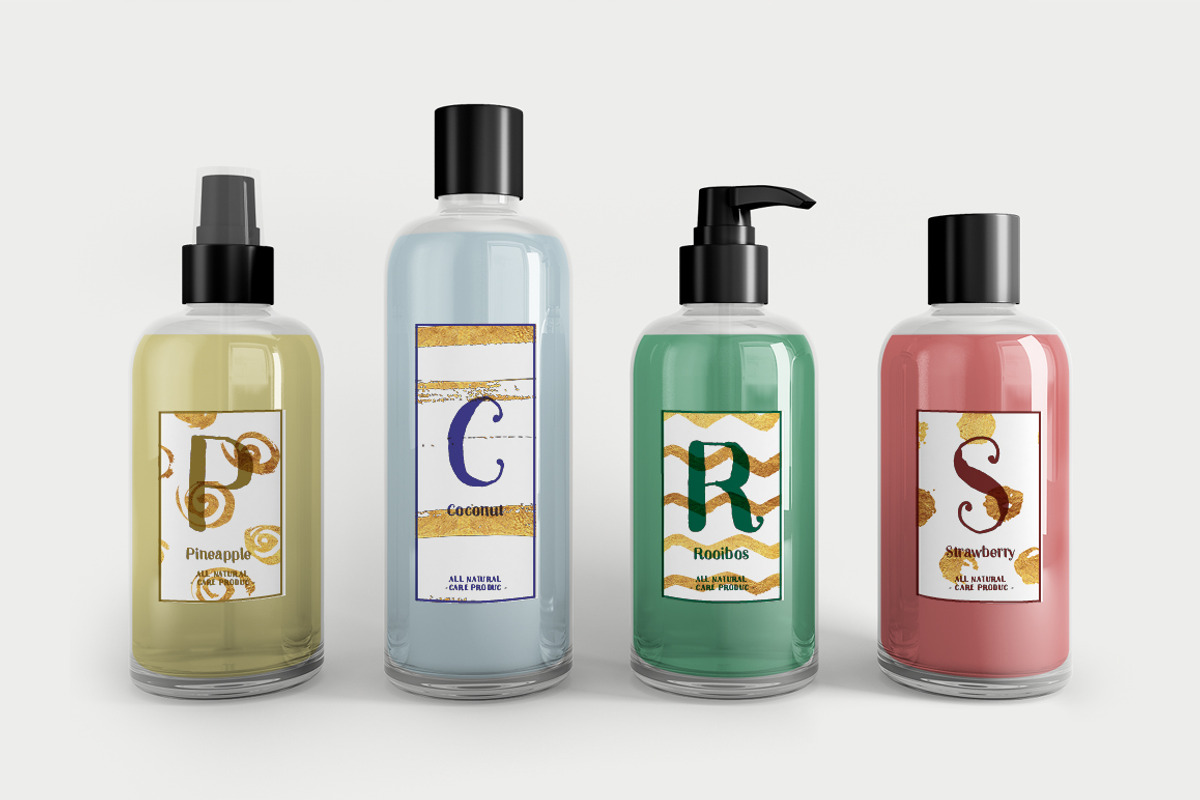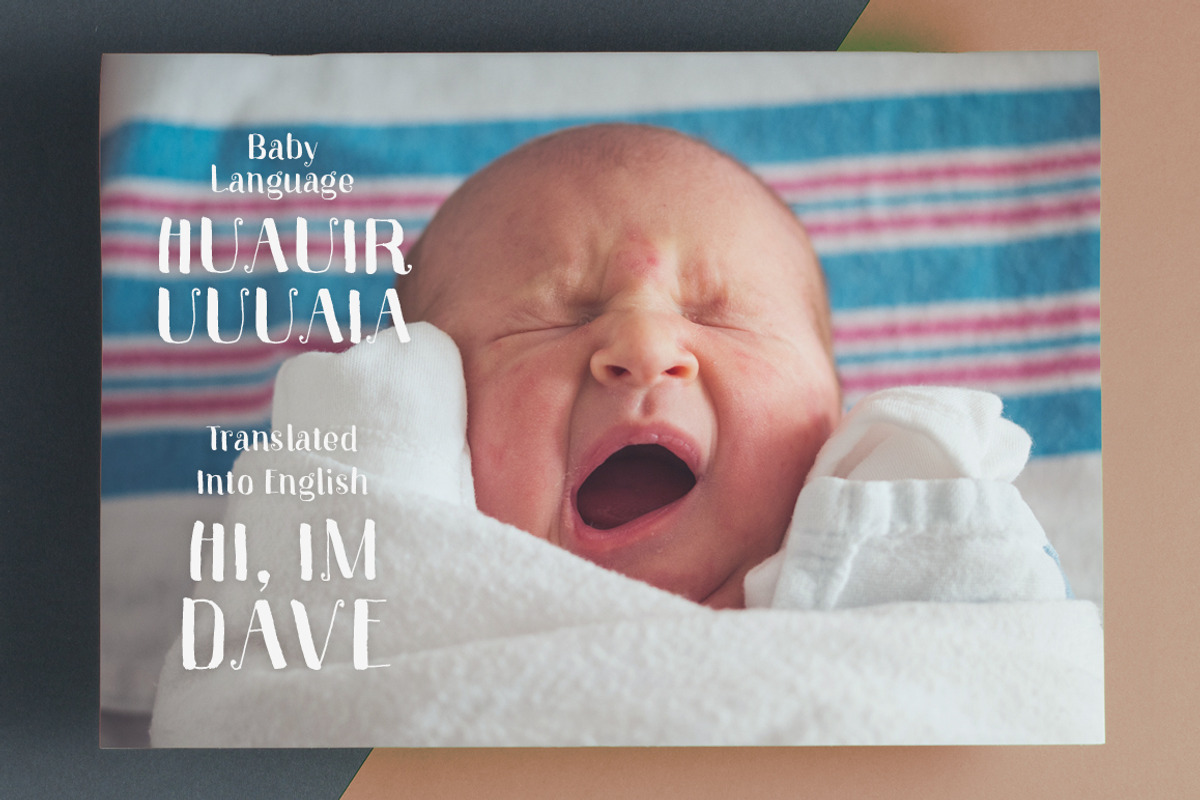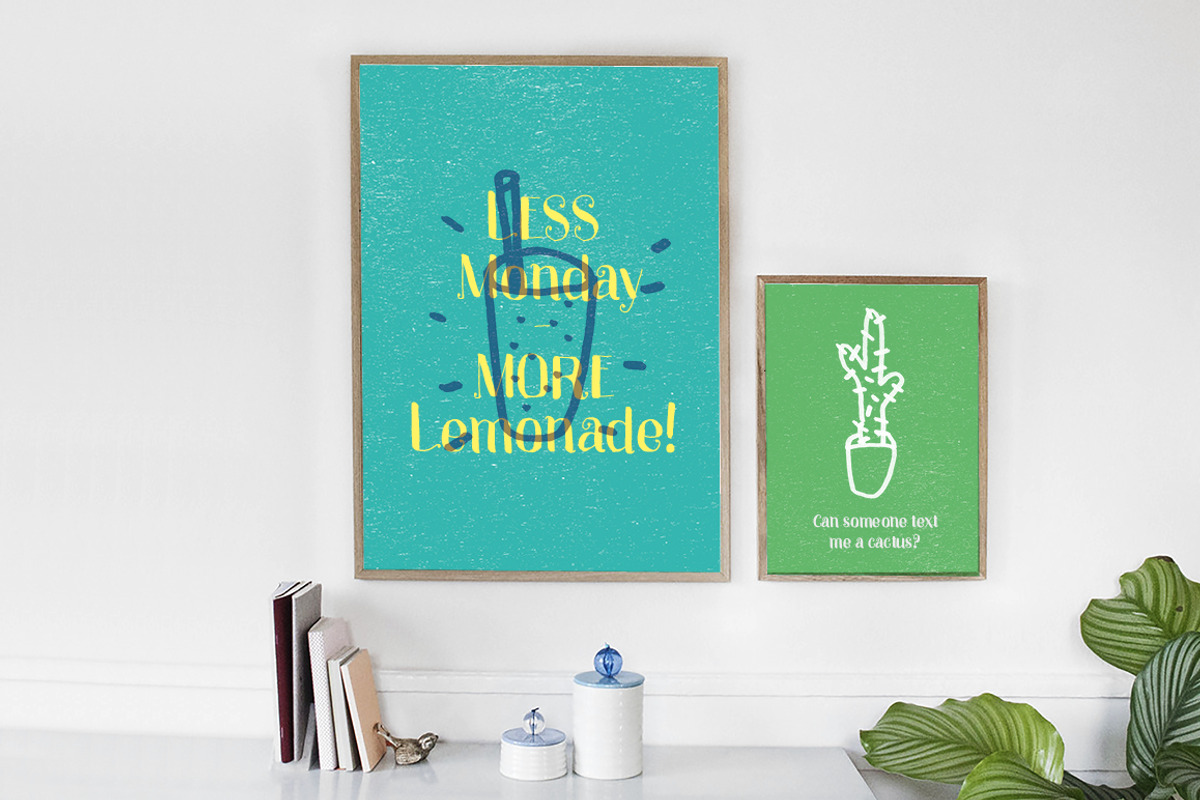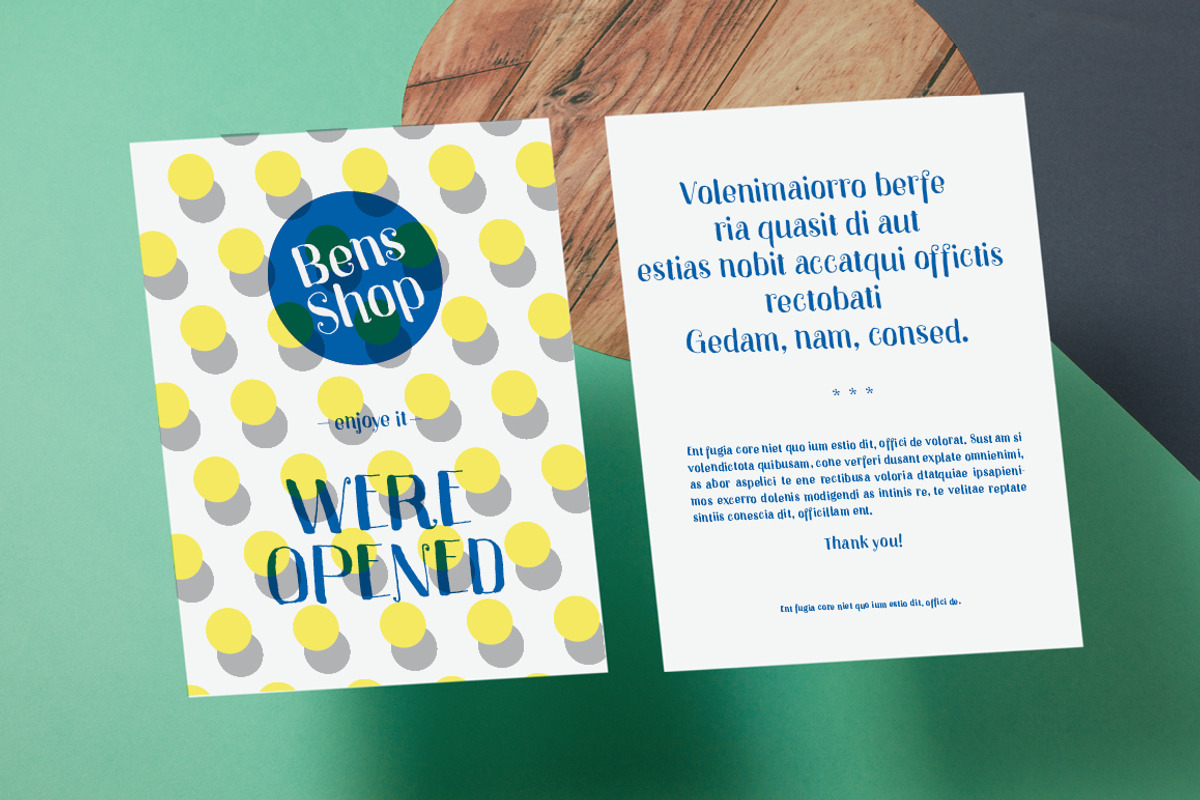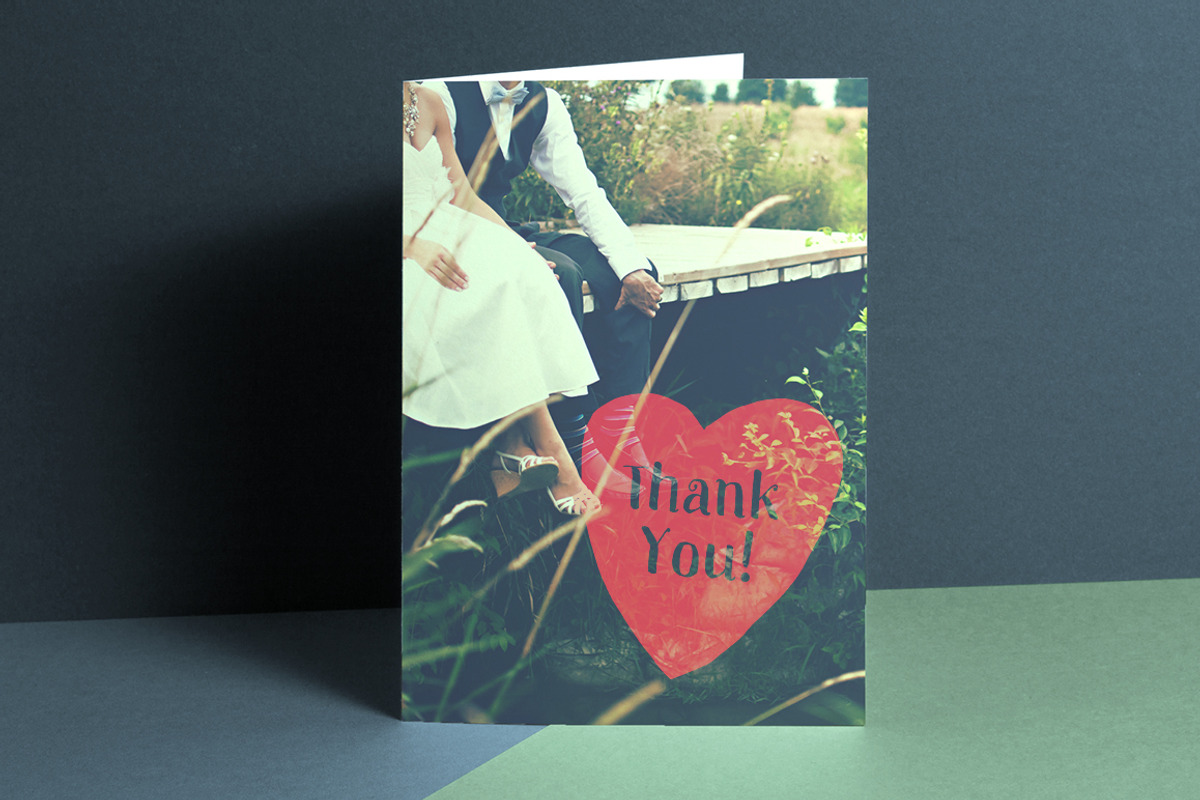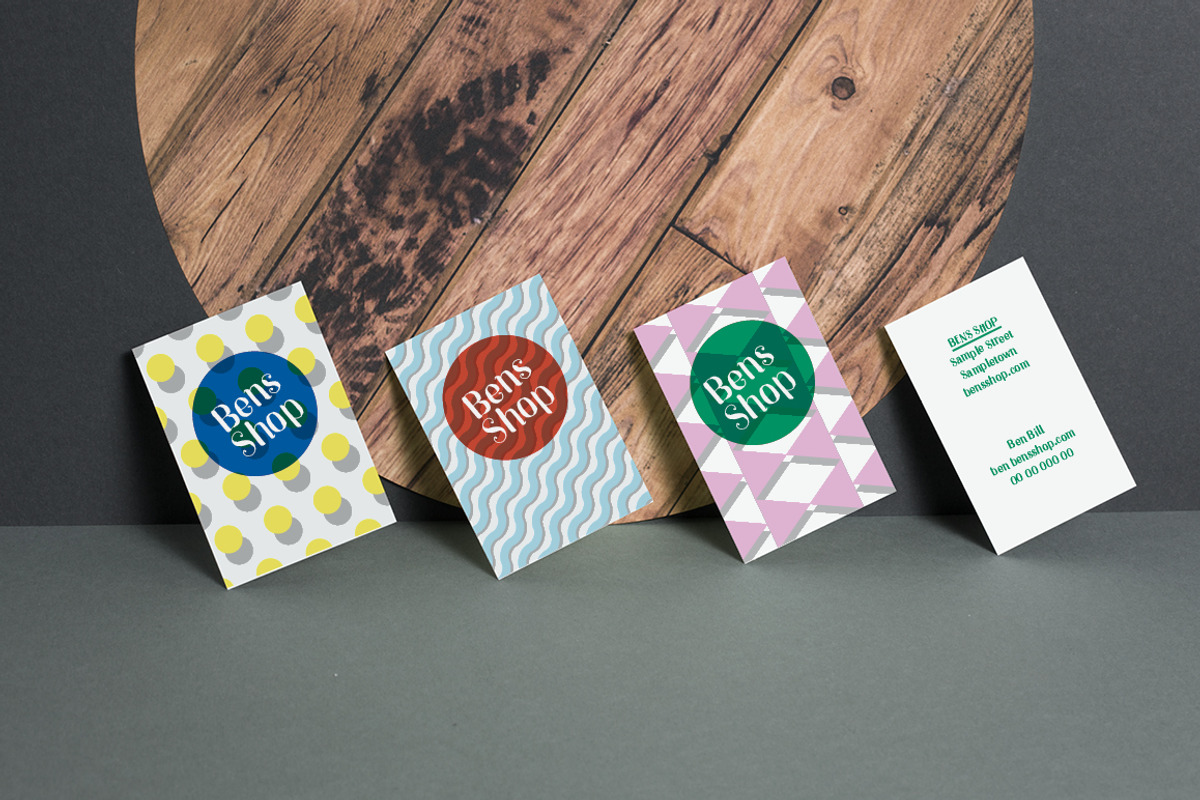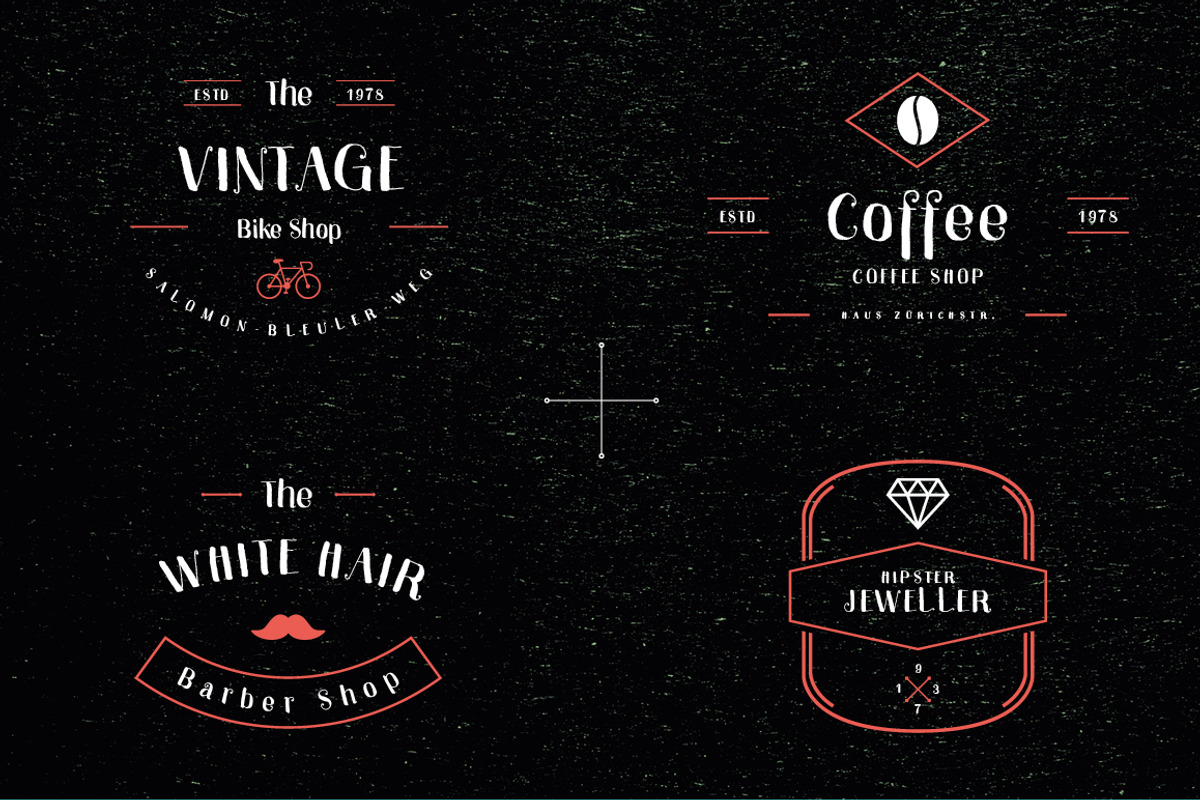
Anya - Beautiful Handwritten Font
Anya - Beautiful Handwritten Font by Studio ZACK is a font selected for branding, posters, packaging, typography.
Why Anya - Beautiful Handwritten Font is worth a look
Anya - Beautiful Handwritten Font by Studio ZACK fits naturally into Branding, posters, packaging, typography.